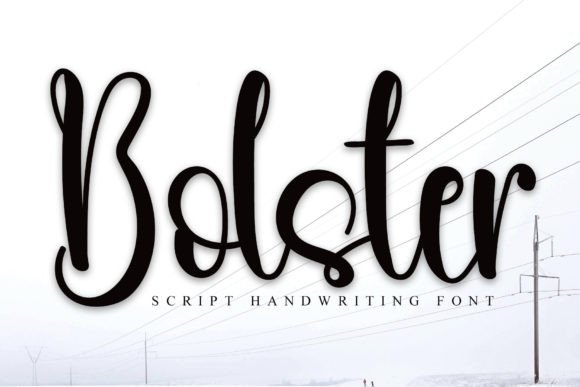
Welcome to the world of Bolster Font, an elegant and captivating script font designed to evoke a touch of romance and sophistication into your creative endeavors.
Immerse yourself in the beauty of this font, meticulously crafted by YanStudio, a name synonymous with typographic excellence. Bolster's sweeping curves and delicate flourishes exude a timeless charm, adding an undeniable allure to your designs.
Whether you're a seasoned designer seeking to elevate your projects or a creative enthusiast eager to make a statement, Bolster Font is your perfect companion. Its versatility knows no bounds, making it suitable for an array of projects, from logos and branding to labels, watermarks, and anything that calls for a romantic touch.
Embark on a creative journey with Bolster Font and watch as your designs blossom with elegance. Express your unique vision, capture attention, and leave a lasting impression with every stroke of this captivating script.